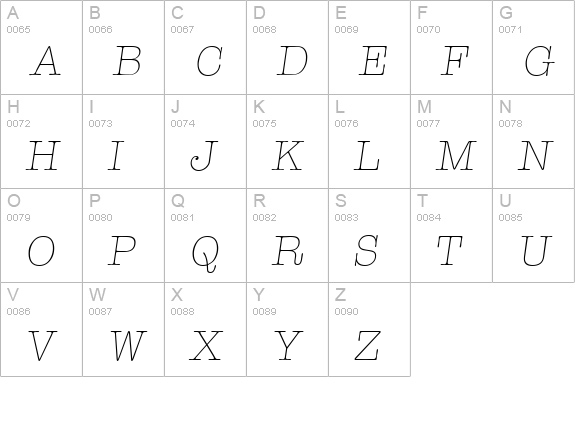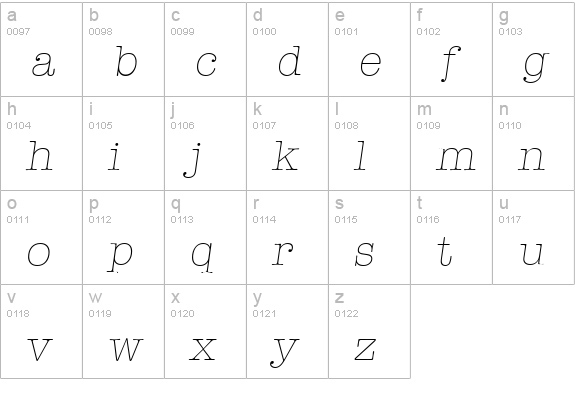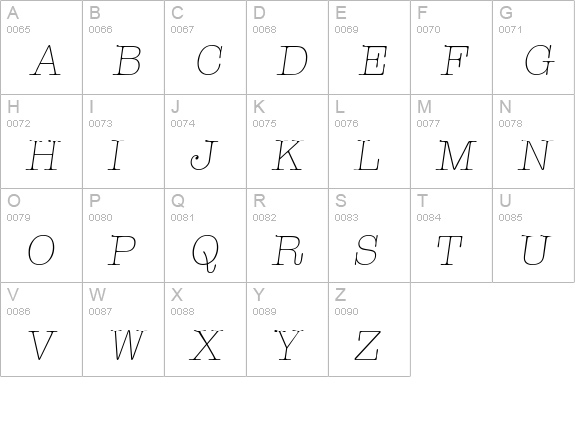
TypewriterSerial-Xlight-Italic Font Details
TypewriterSerial-Xlight-Italic is a distinctive, italic variant in the TypewriterSerial typeface family \xE2\x80\x94 well suited to design and typography projects.
Introducing TypewriterSerial-Xlight-Italic font, a sleek and modern typeface that adds a touch of sophistication to any project. This unique font combines the classic charm of a typewriter with a contemporary twist, making it perfect for both professional and creative designs. The light and italic style of TypewriterSerial-Xlight-Italic font brings a sense of elegance and flair, making it a versatile choice for various applications. Best of all, TypewriterSerial-Xlight-Italic font is completely free to download at FontsMarket.com. This means you can easily access this stylish font without any cost, making it a valuable addition to your font collection. Whether you're designing a website, creating a poster, or working on a branding project, TypewriterSerial-Xlight-Italic font is sure to elevate your design with its unique aesthetic and modern appeal. Don't miss out on the opportunity to enhance your projects with this beautiful and free font. Download TypewriterSerial-Xlight-Italic today and add a touch of sophistication to your designs!